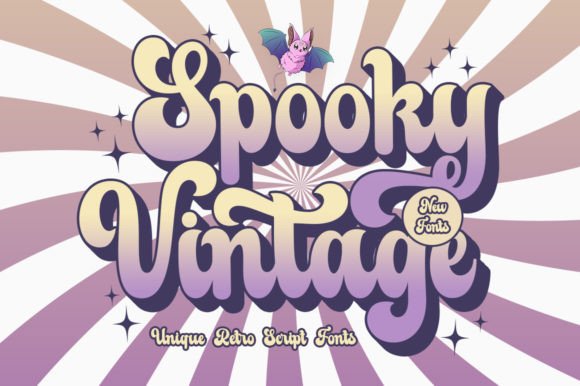
Introducing the Spooky Vintage Font, a captivating display font that will instantly transport you to the playful nostalgia of the past. Created by the talented Diorde Studio, this font is the perfect choice for those looking to make a bold statement with their designs.
With its unique blend of vintage charm and modern appeal, Spooky Vintage is the ultimate font for large banners, grabbing attention and leaving a lasting impression. Imagine your brand or message beautifully displayed in this eye-catching font, instantly captivating your audience and setting you apart from the competition.
But it doesn't stop there. Spooky Vintage is more than just a font; it's a creative tool that unlocks endless possibilities for your designs. Whether you're working on a logo, poster, website, or any other project, this font will elevate your ideas and take them to the next level.
The carefully crafted details of Spooky Vintage make it truly stand out. Each letter is meticulously designed to exude a sense of nostalgia and evoke emotions. It's like a trip down memory lane, bringing back the magic of vintage signage and typography.
Don't miss out on the opportunity to add a touch of retro elegance to your designs. Get Spooky Vintage today and embark on a creative adventure like no other. Let the power of this font transform your ideas into captivating masterpieces that will grab attention, evoke emotions, and make a lasting impact.